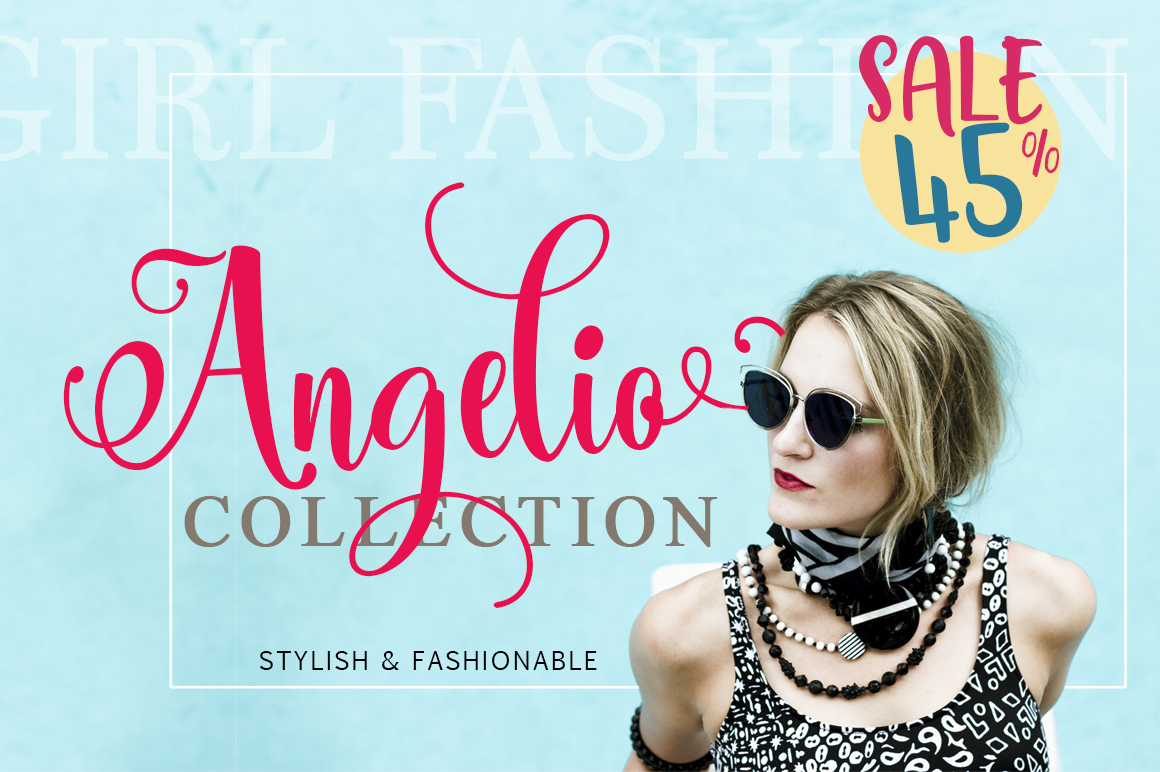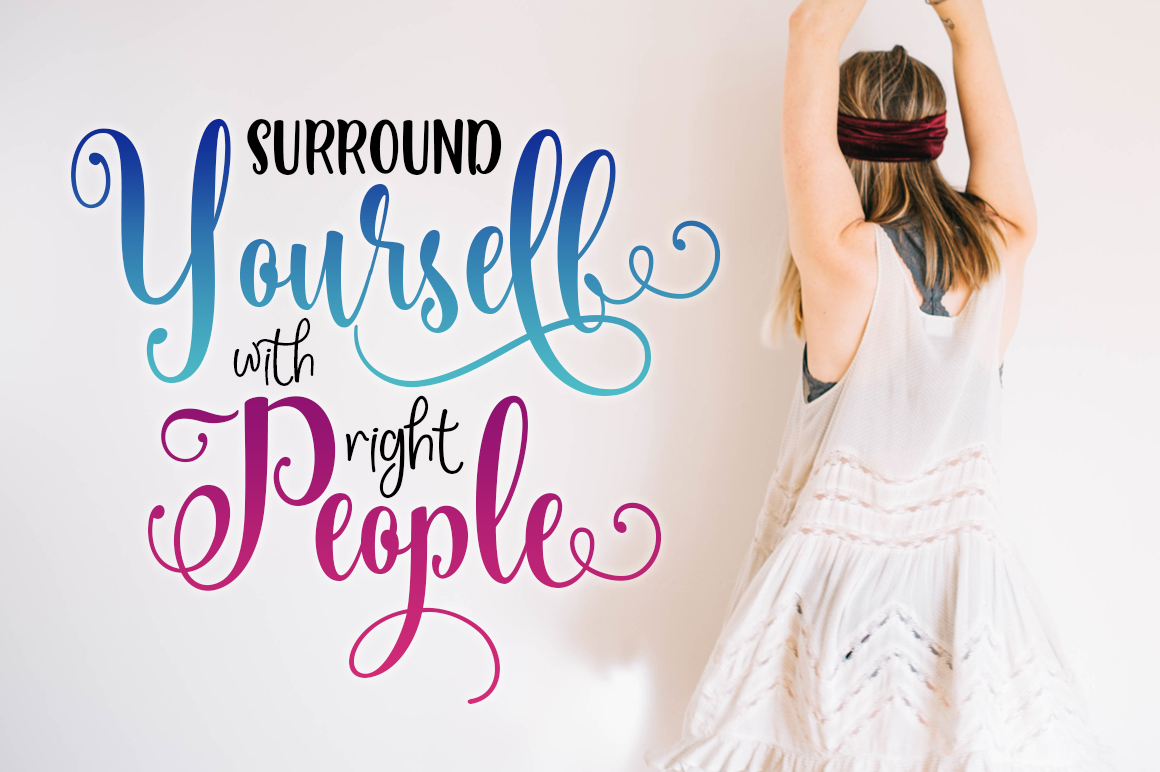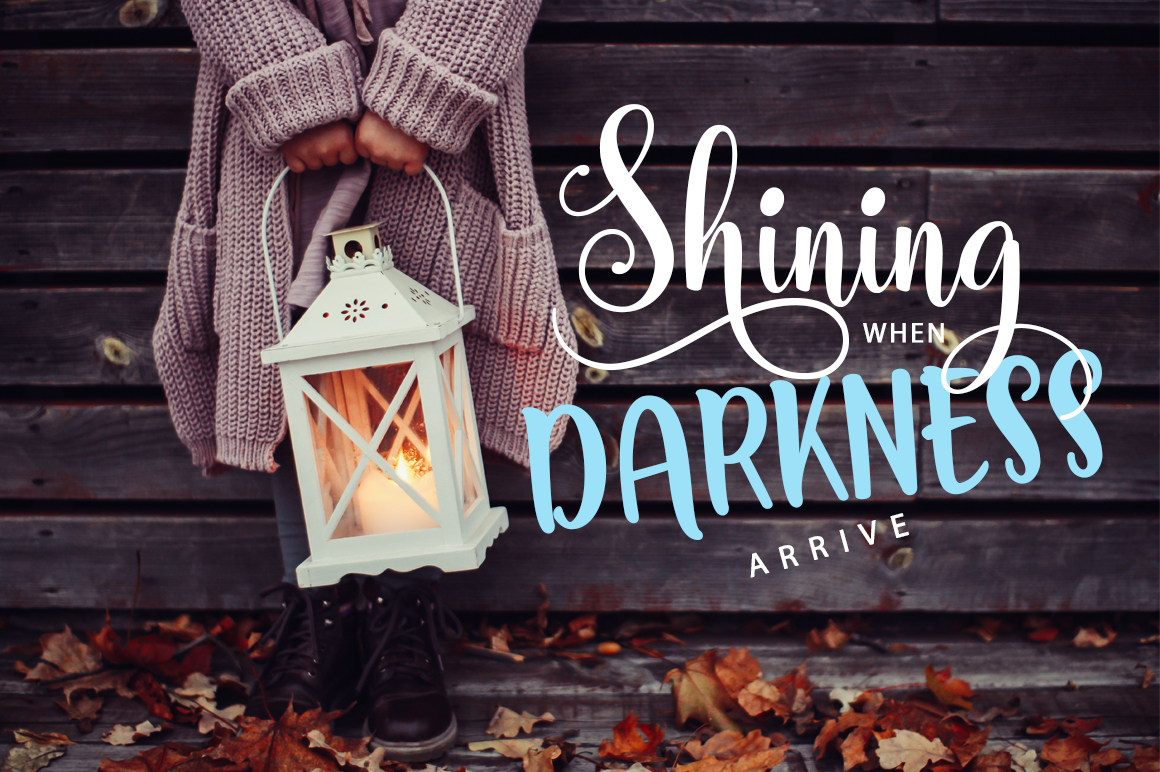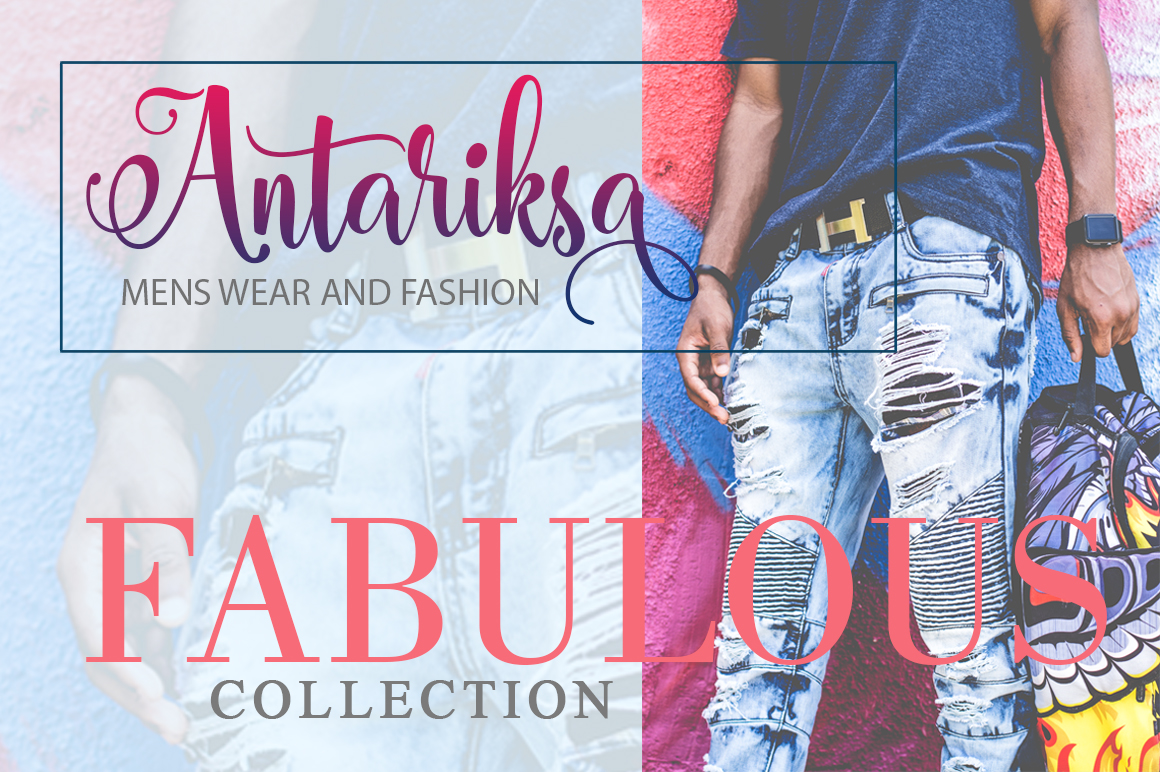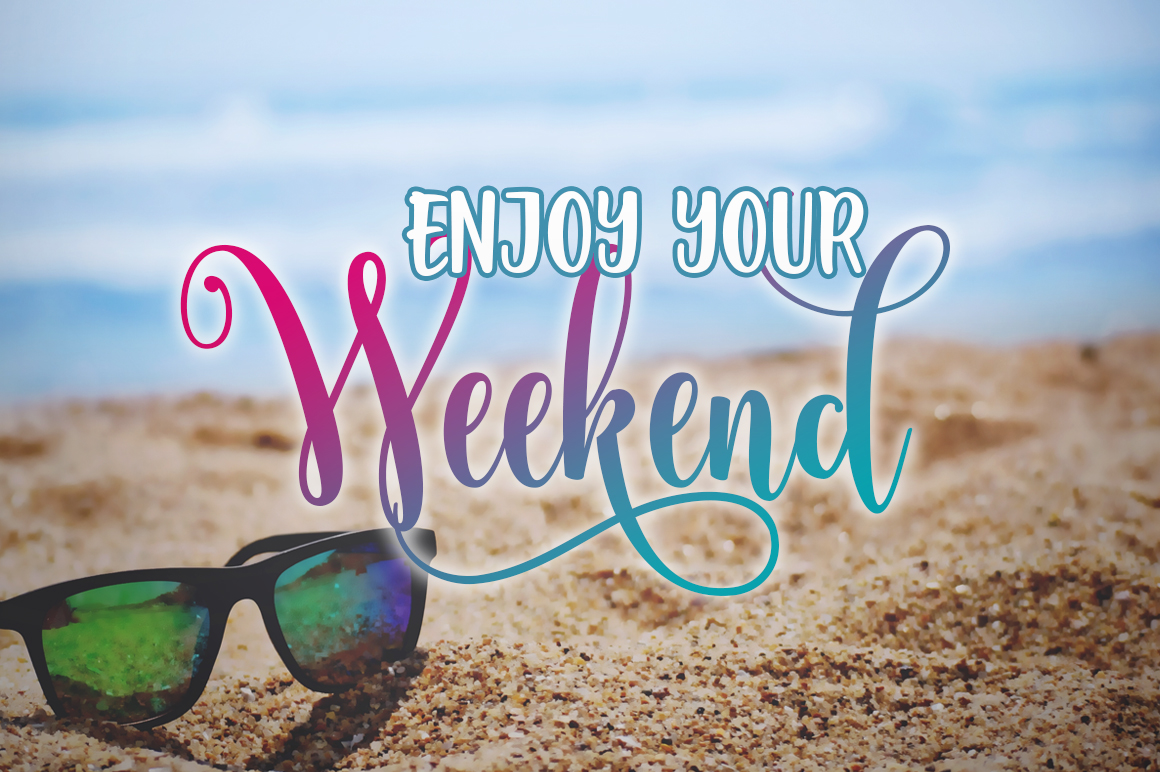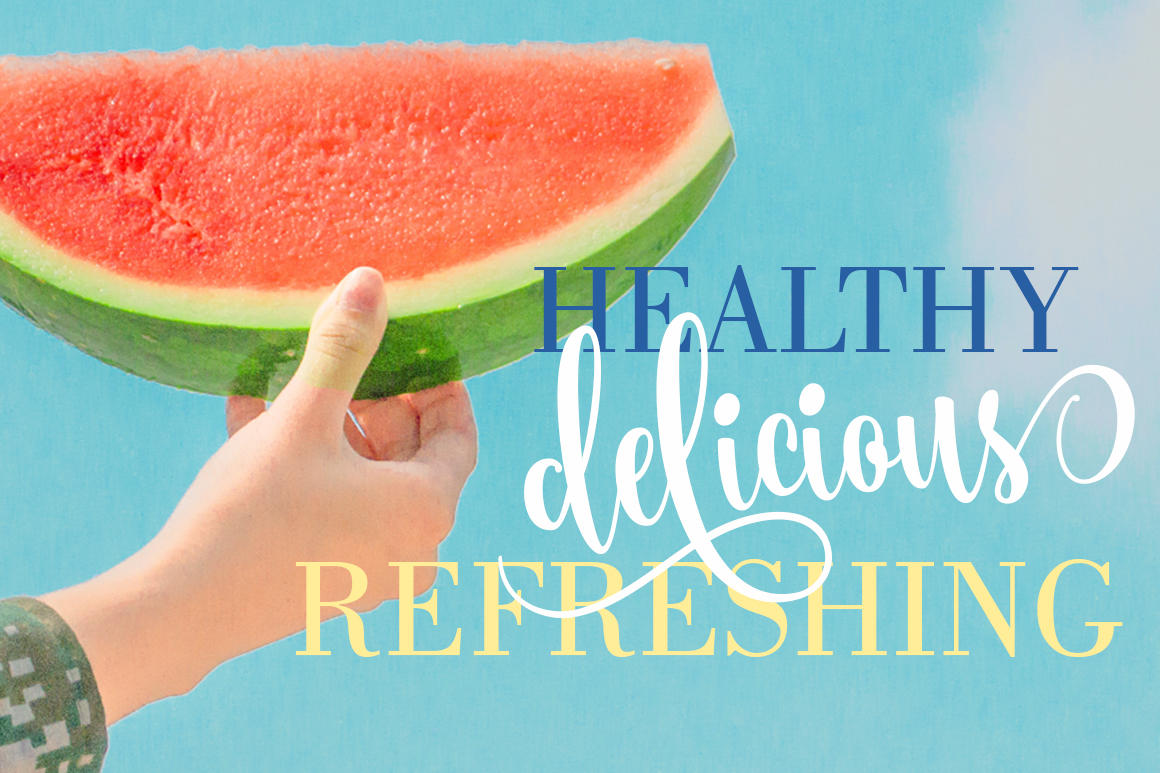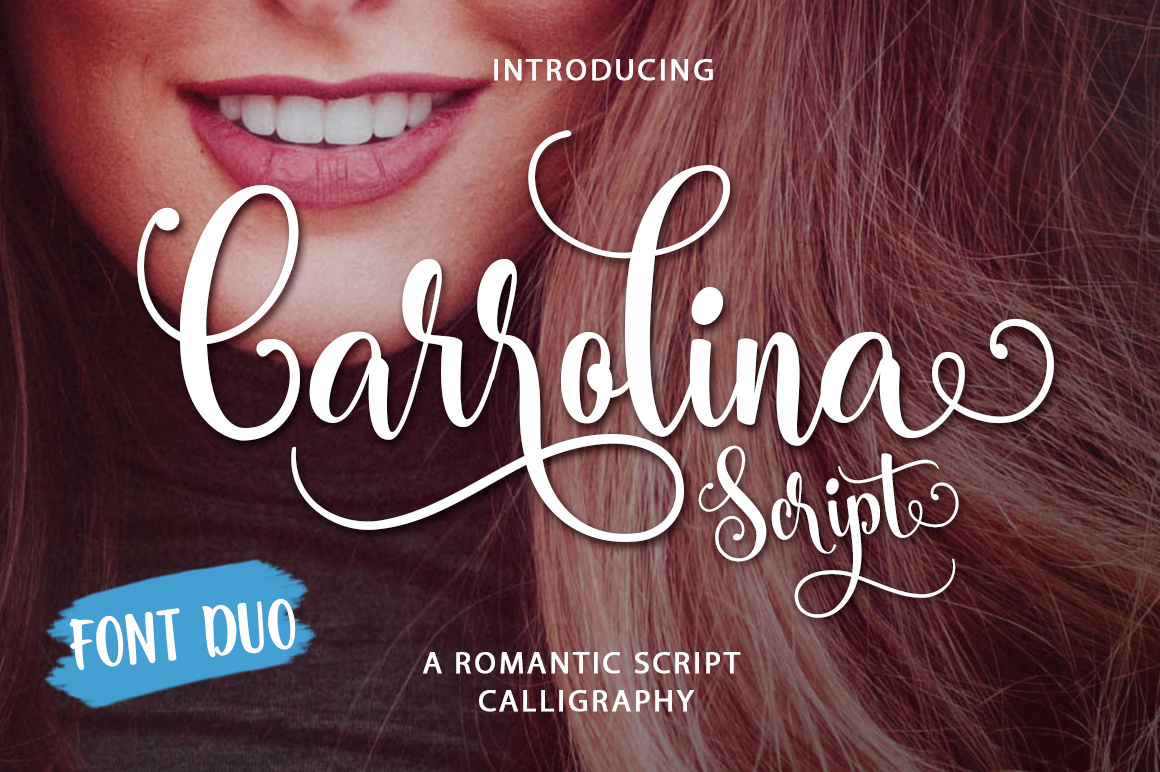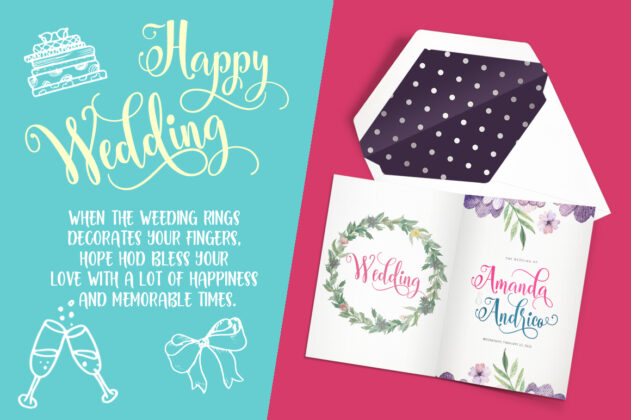
Carrolina
About Carrolina Font
The Stunning Carrolina Font Duo consists out of Carrolina Script & Carrolina Sans.
Carrolina Script is a romantic fluid calligraphy font. It is designed to look sweet and elegant, but with a professional touch.
Carrolina Sans is a very cutesy and lightweight sans font that works perfect in combination with the script version.